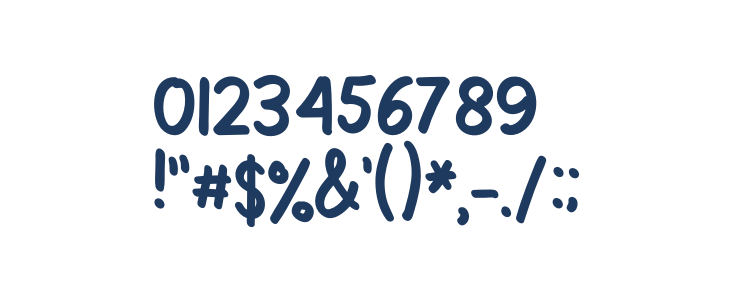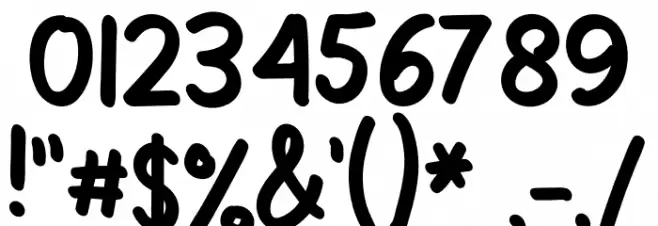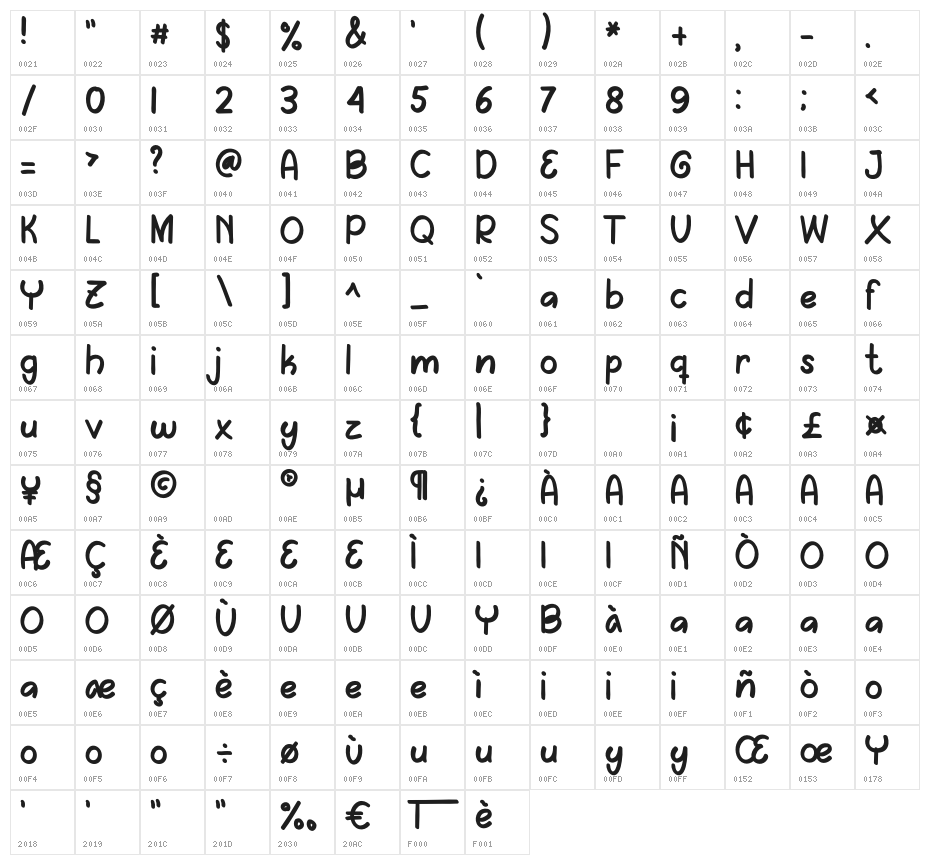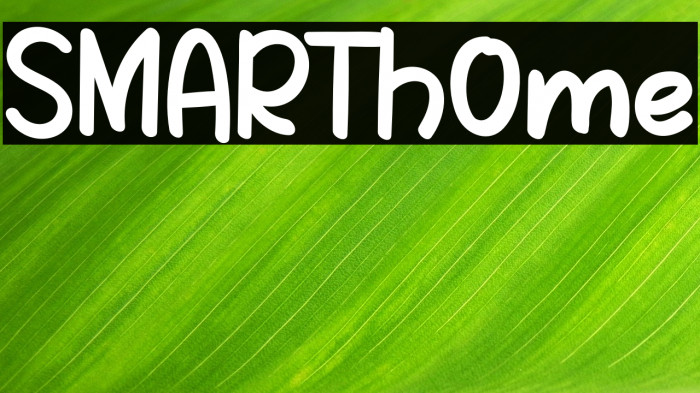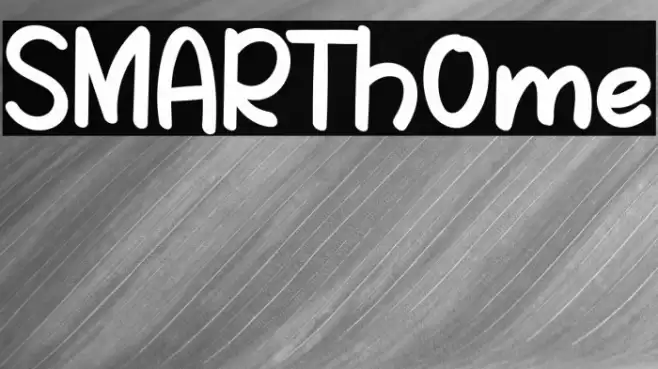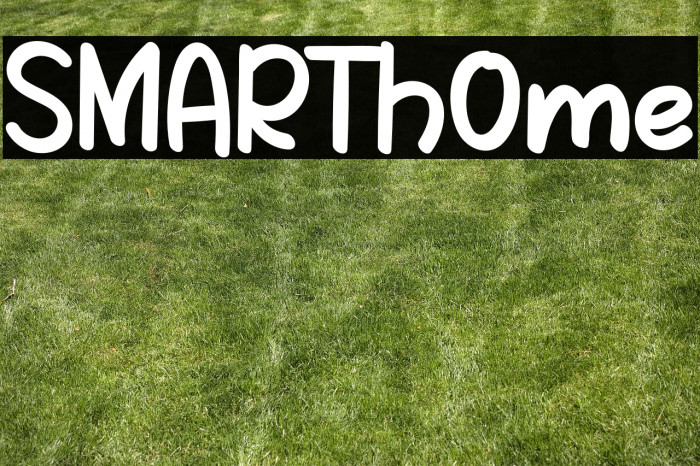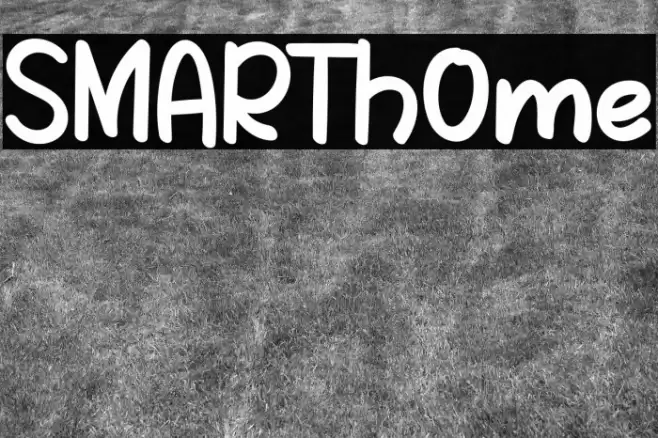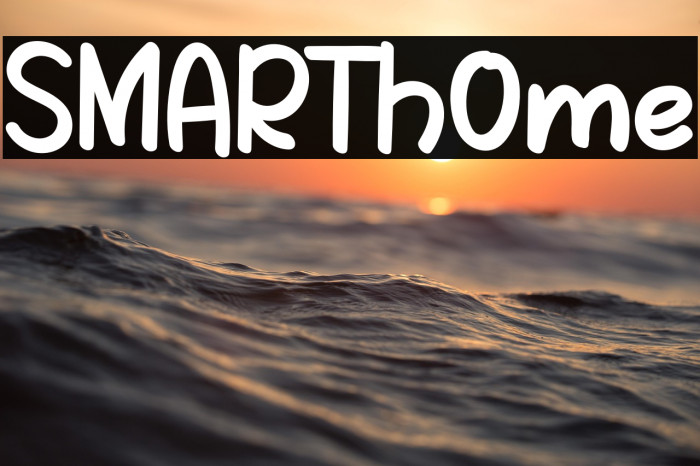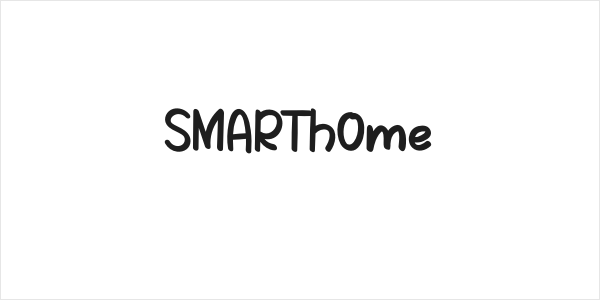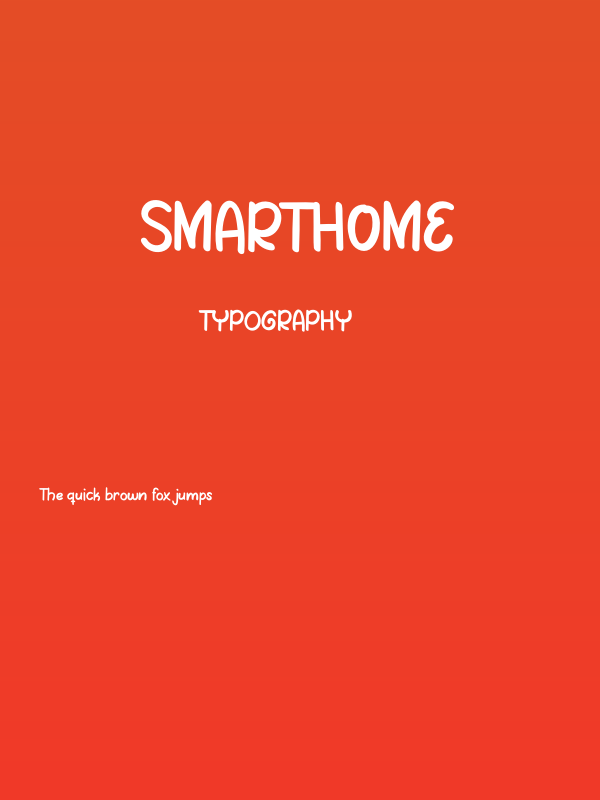
SMARTh0me Font
SMARTh0me Description
This playful and bold font features rounded, thick strokes that give it a friendly and approachable appearance. The characters are slightly irregular, adding a whimsical touch that makes it stand out. The uppercase letters are bold and prominent, while the lowercase letters maintain a consistent style with a slightly more relaxed form. The numerals are clear and easy to read, matching the overall playful aesthetic. Special characters are included, maintaining the same bold and rounded style. This font is perfect for projects that require a fun and engaging look.